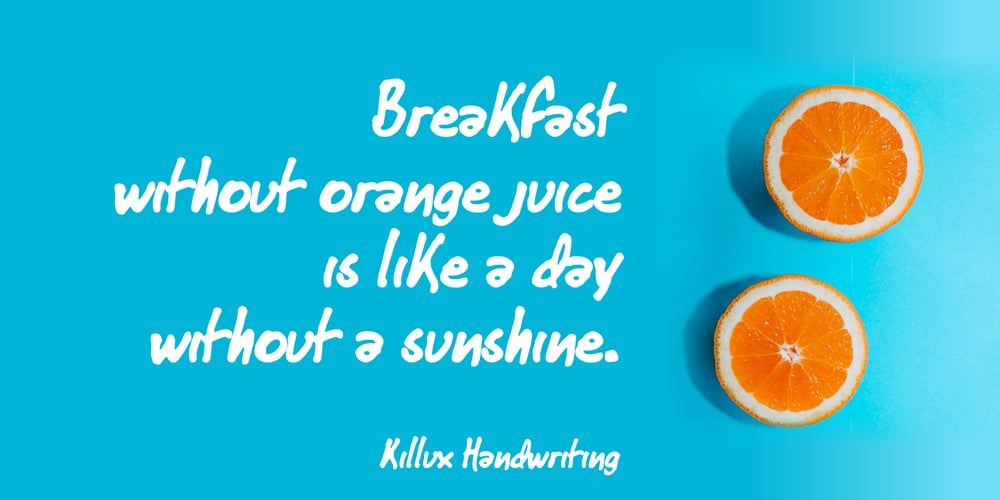
Killux Handwriting
Killux Handwriting font
Killux Handwriting Font Family was designed by KLEBER PEDROSA and published by Kleber Pedrosa. Killux Handwriting contains 1 styles and family package options. Killux is a very natural handwriting font for light and peaceful pieces of artwork.